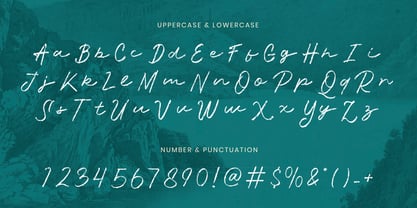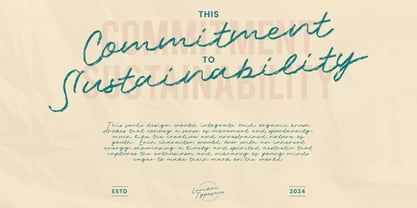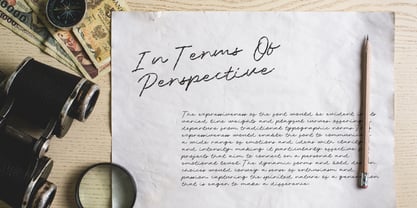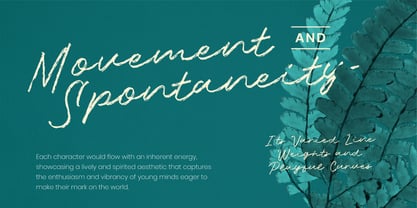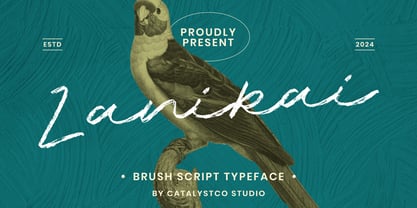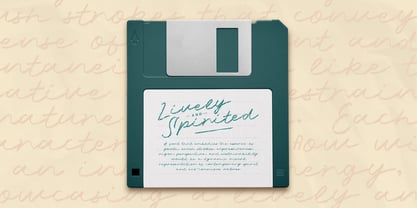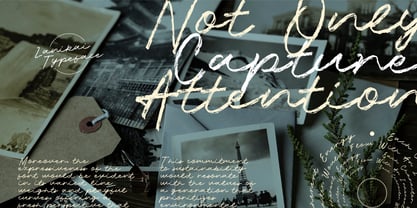
Lanikai
by Catalystco Std
The Lanikai Font Family was designed by and published by Catalystco Std. Lanikai contains 1 styles. More about this family
Lanikai is a textured brush script typeface inspired by relaxed island vibes and expressive handwriting. Its rough strokes and authentic dry-brush texture create a natural, sun-worn aesthetic — evoking the energy of surf culture, travel journals, and creative freedom. The casual flow and organic imperfections bring warmth and character to any design. Including uppercase, lowercase, numerals, and punctuation, Lanikai is crafted for versatility across both print and digital media. Perfect for branding, posters, packaging, and editorial titles, it adds a handcrafted touch that feels adventurous yet effortlessly stylish.